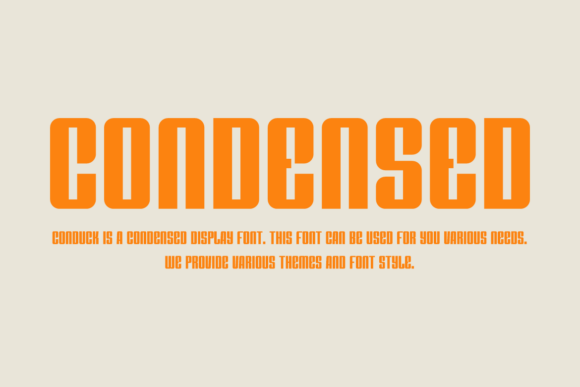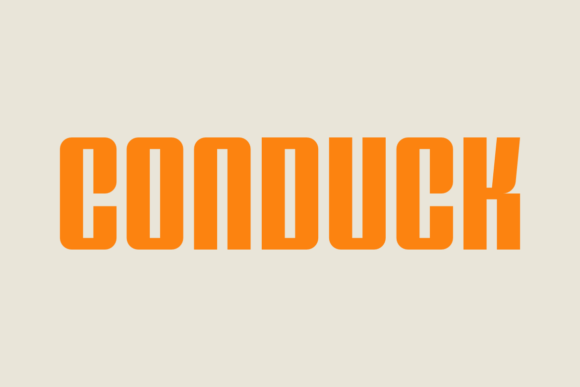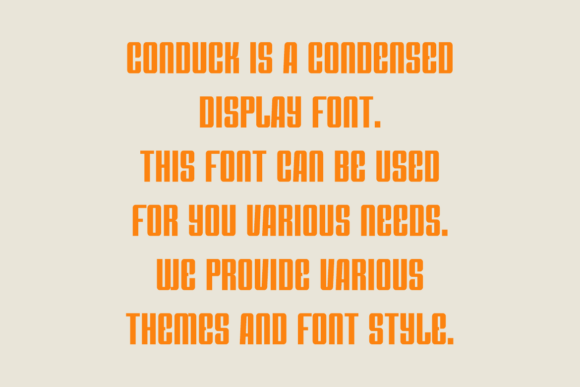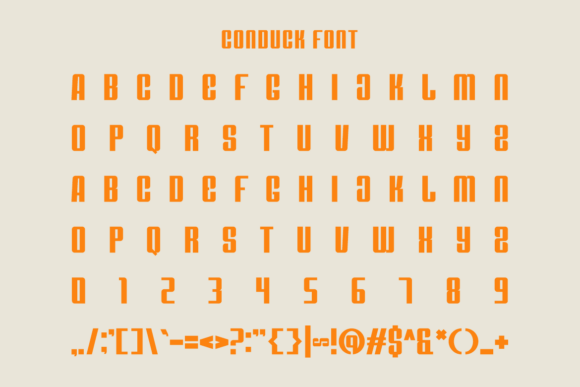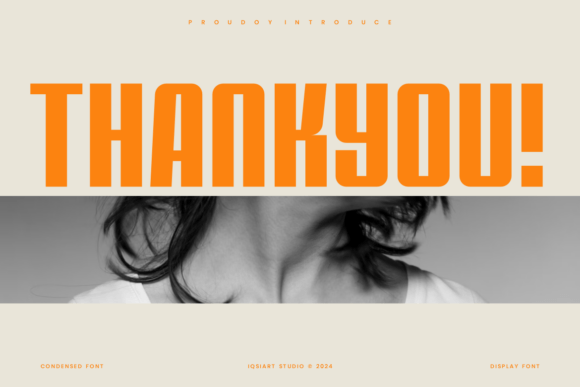
Introducing Conduck Font: The Ultimate Condensed Display Font for Creative Projects
Are you tired of using the same old fonts for your creative projects? Look no further! Conduck Font is an incredibly unique condensed display font that is sure to take your designs to the next level. Masterfully designed to become a true favorite, this font has the potential to bring each of your creative ideas to the highest level.
What is Conduck Font?
Conduck Font is a condensed display font that is designed to make a statement. Its unique and sleek design makes it perfect for a variety of creative projects, from branding and advertising to packaging and web design. With its condensed letterforms, Conduck Font is ideal for headlines, titles, and short paragraphs of text.
Key Features of Conduck Font
- Unique and Sleek Design: Conduck Font has a one-of-a-kind design that sets it apart from other fonts. Its sleek and modern look makes it perfect for creative projects that require a touch of sophistication.
- Condensed Letterforms: The condensed letterforms of Conduck Font make it ideal for headlines, titles, and short paragraphs of text. This feature also allows for more text to be fit into a smaller space, making it perfect for designs with limited space.
- Highly Versatile: Conduck Font is highly versatile and can be used for a variety of creative projects, from branding and advertising to packaging and web design.
- Easily Readable: Despite its condensed design, Conduck Font is easily readable, even at smaller sizes. This makes it perfect for designs that require a lot of text, such as blog posts and articles.
Benefits of Using Conduck Font
Using Conduck Font in your creative projects can have a number of benefits. Here are just a few:
- Adds a Touch of Sophistication: Conduck Font adds a touch of sophistication to any design. Its sleek and modern look makes it perfect for creative projects that require a high-end feel.
- Helps to Stand Out: With its unique and condensed design, Conduck Font helps your creative projects to stand out from the crowd. This is especially important in today’s competitive design landscape.
- Increases Readability: Despite its condensed design, Conduck Font is easily readable, even at smaller sizes. This makes it perfect for designs that require a lot of text.
How to Use Conduck Font
Using Conduck Font in your creative projects is easy. Here are a few tips to get you started:
- Use it for Headlines and Titles: Conduck Font is perfect for headlines and titles. Its condensed design makes it ideal for short phrases and words.
- Experiment with Different Sizes: Conduck Font is easily readable at a variety of sizes. Experiment with different sizes to find the one that works best for your design.
- Pair it with Other Fonts: Conduck Font pairs well with a variety of other fonts. Experiment with different pairings to find the one that works best for your design.
Conduck Font is an incredibly unique condensed display font that is sure to take your creative projects to the next level. With its sleek and modern design, condensed letterforms, and high versatility, Conduck Font is perfect for a variety of creative projects. Whether you’re a designer, craft, or simply someone who loves to create, Conduck Font is a must-have font for any creative project.
If you’re a designer or crafter, here are a few tips for using Conduck Font in your creative projects:
- Use it for Branding and Advertising: Conduck Font is perfect for branding and advertising projects. Its sleek and modern design makes it ideal for logos, business cards, and other marketing materials.
- Experiment with Different Colors: Conduck Font looks great in a variety of colors. Experiment with different colors to find the one that works best for your design.
- Use it for Packaging Design: Conduck Font is also great for packaging design. Its condensed design makes it perfect for labels and other packaging materials.